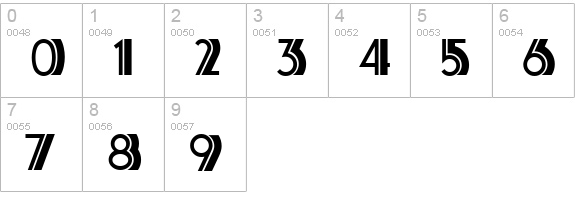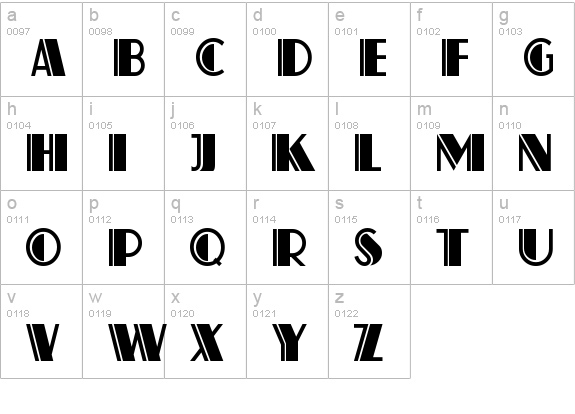
AtlasSolid Font Details
Introducing AtlasSolid font, a sleek and modern typeface that exudes sophistication and elegance. With its clean lines and bold presence, AtlasSolid is perfect for creating eye-catching designs that demand attention. This versatile font is ideal for a wide range of projects, from branding and advertising to packaging and editorial design. What sets AtlasSolid apart is not only its striking aesthetic appeal but also its versatility and ease of use. Whether you're designing a logo, poster, website, or any other creative project, AtlasSolid offers a wide range of weights and styles to suit your needs. Best of all, AtlasSolid is available for free download at FontsMarket.com. Simply visit the website to get your hands on this stunning font and take your designs to the next level. Don't miss out on the opportunity to add AtlasSolid to your font collection and elevate your creative projects with its timeless appeal.